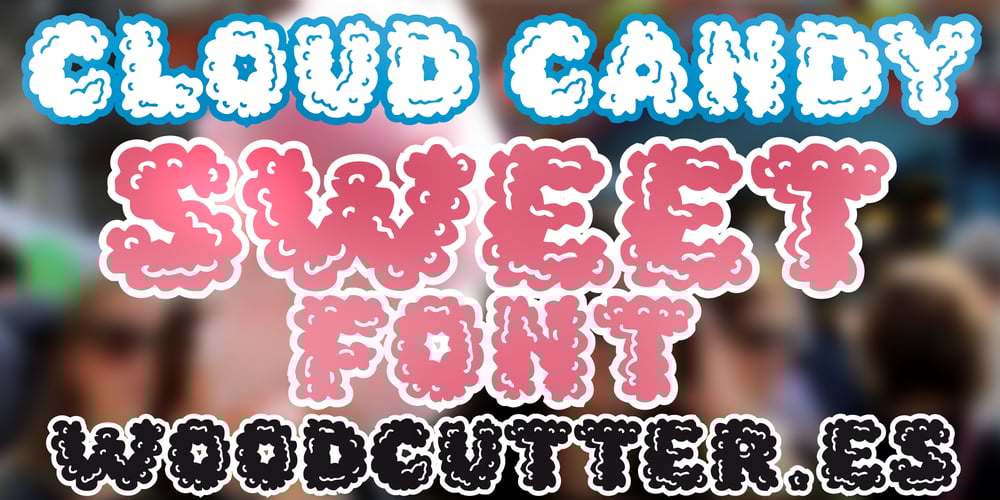
Cloud Candy Font Family was designed by Jordi Manero and published by Woodcutter. Cloud Candy contains 1 styles and family package options. “Cloud Candy” is a fun typeface with rounded letters that mimic the shape of a cloud, as if drawn by a small child. Its charming and playful design makes it perfect for children’s projects, birthday invitations, party posters, and all kinds of creative works that seek a touch of sweetness and joy. Each letter is soft and fluffy, evoking the lightness of a cotton cloud. “Cloud Candy” brings a sense of innocence and fun, making any text appear friendly and approachable.